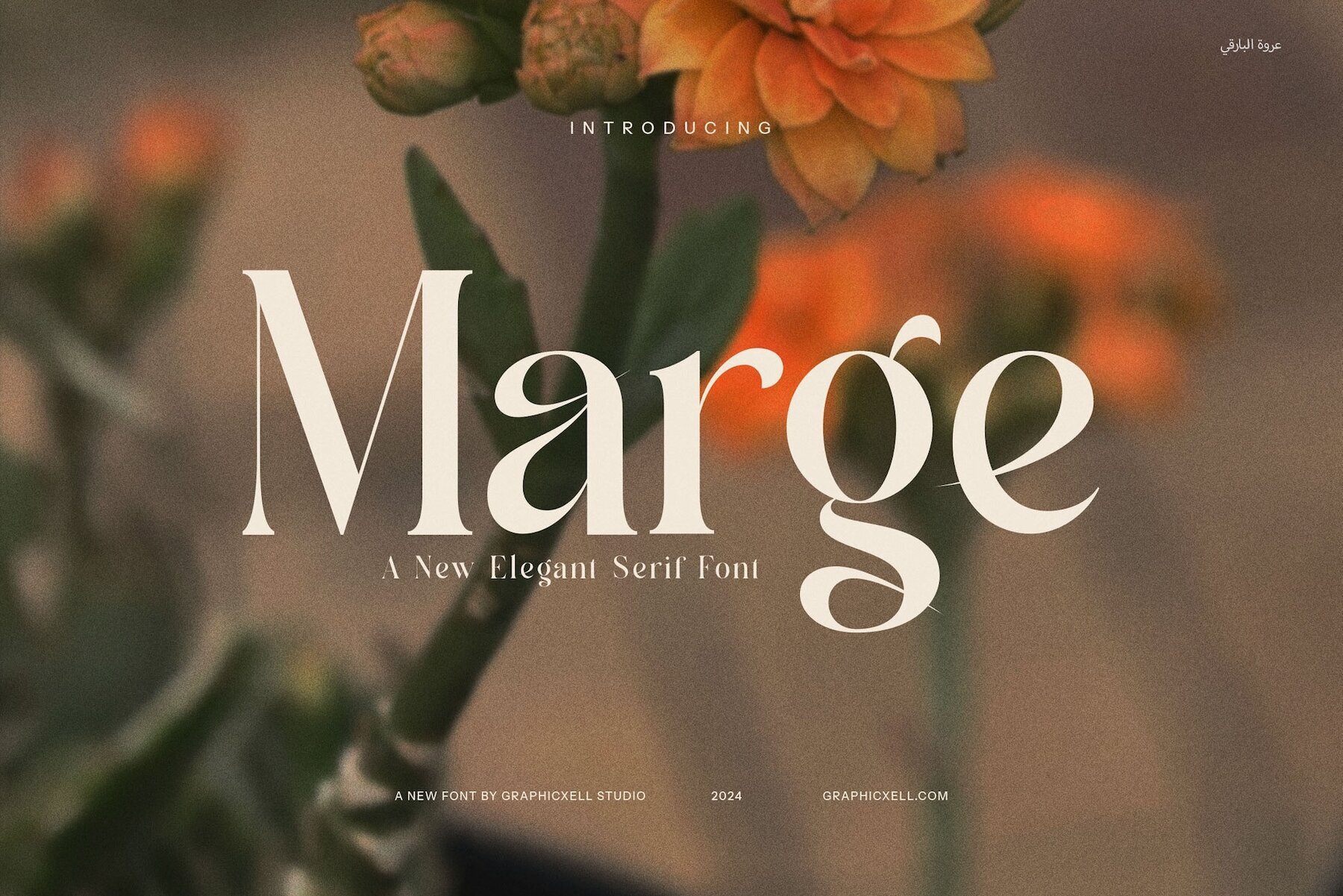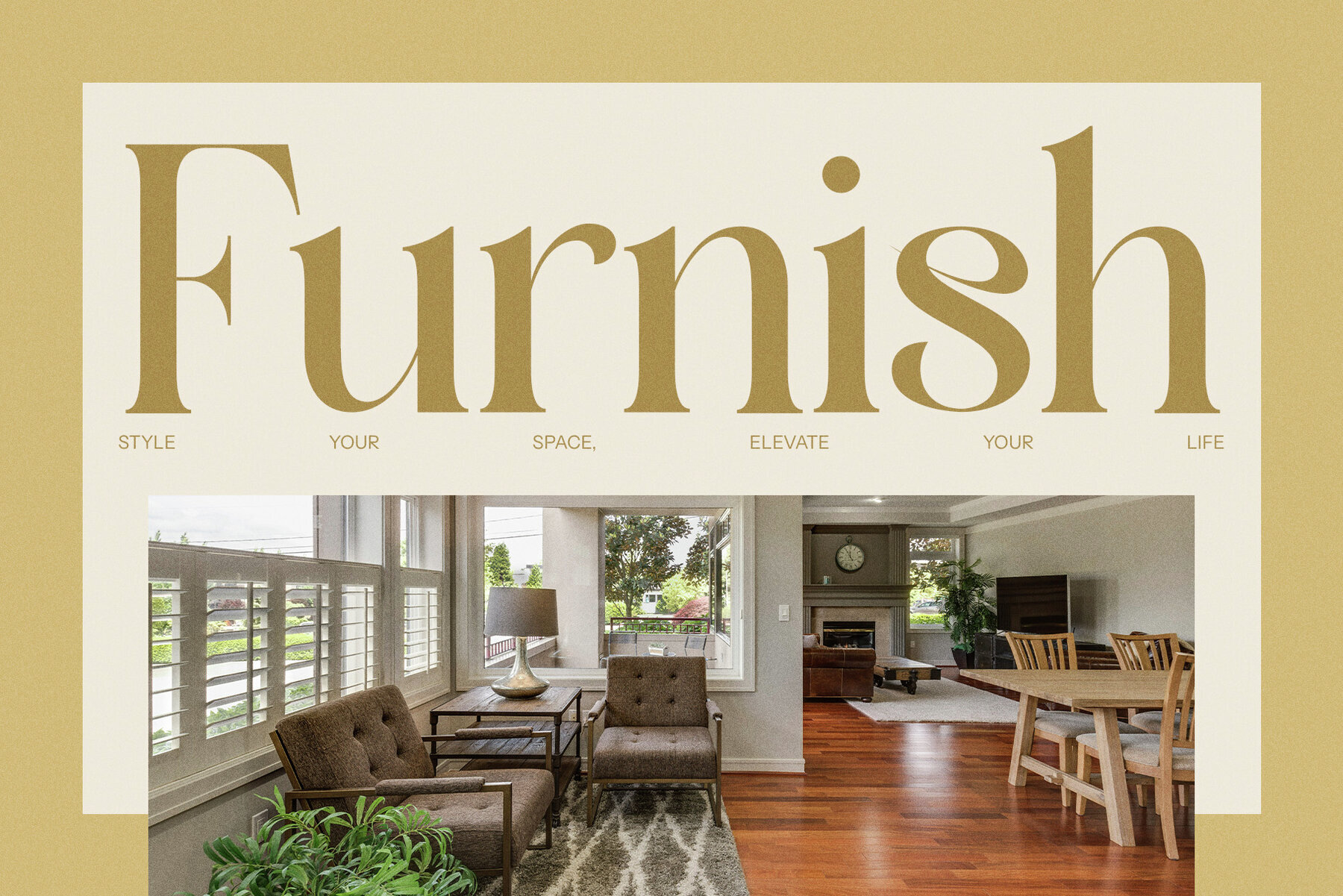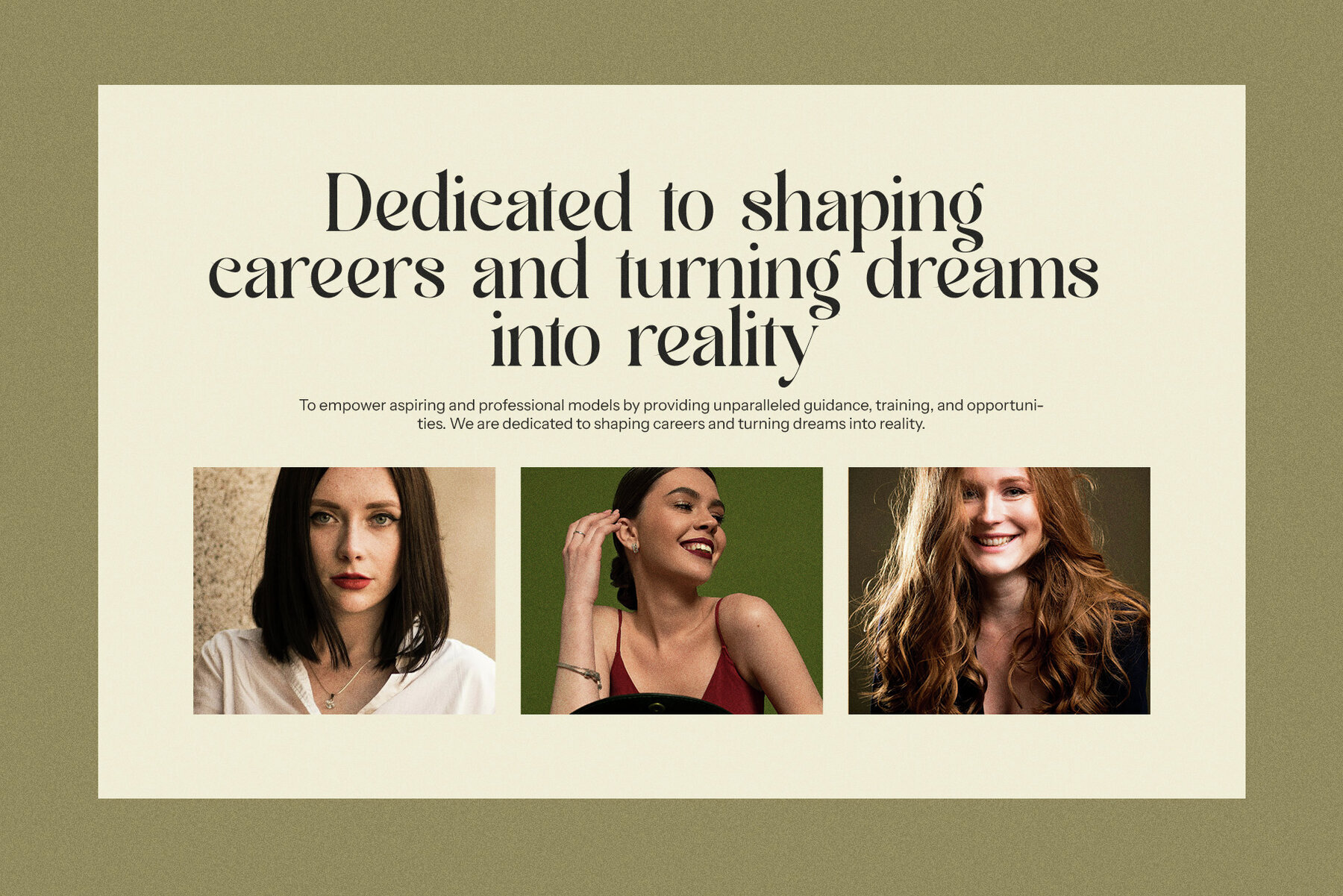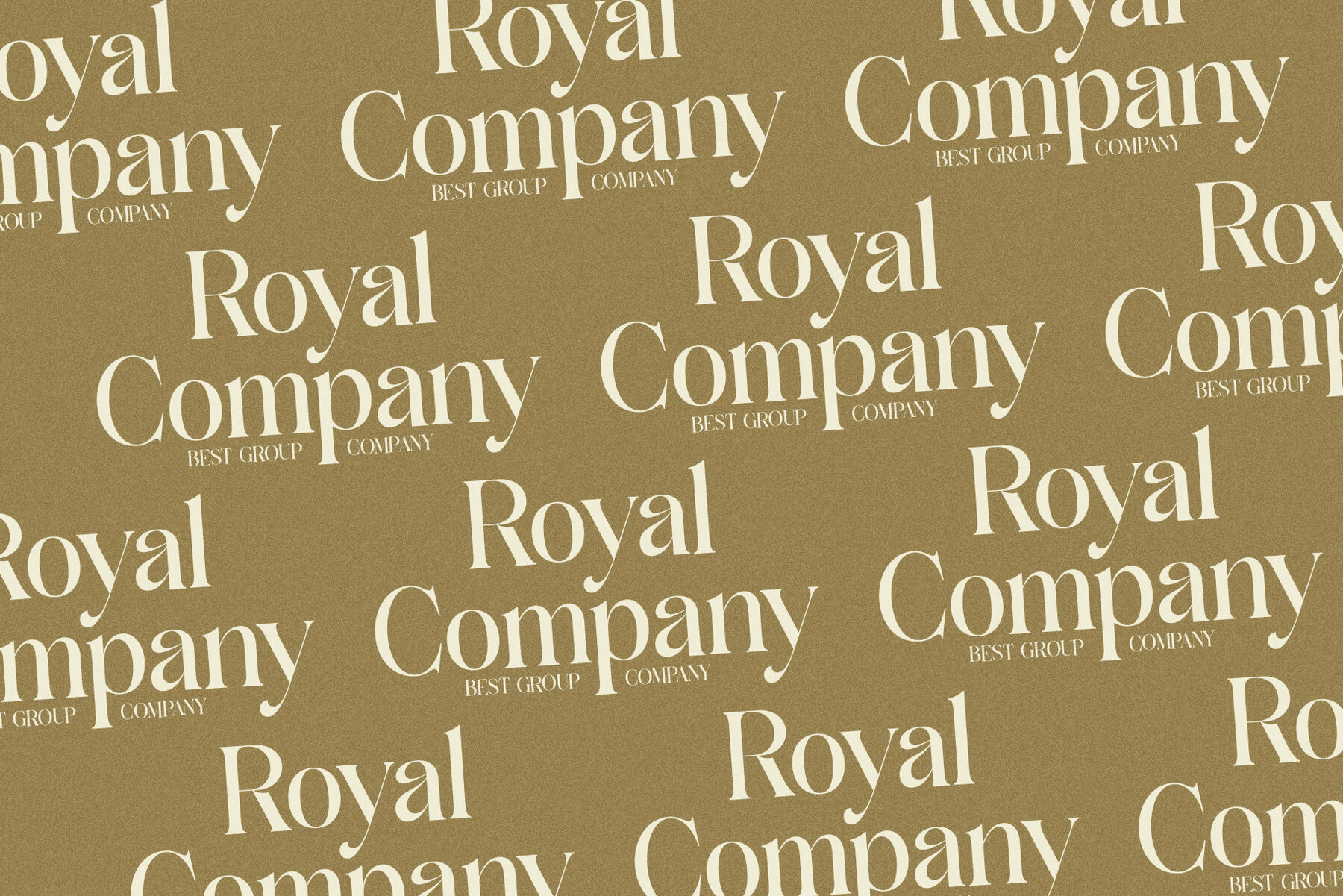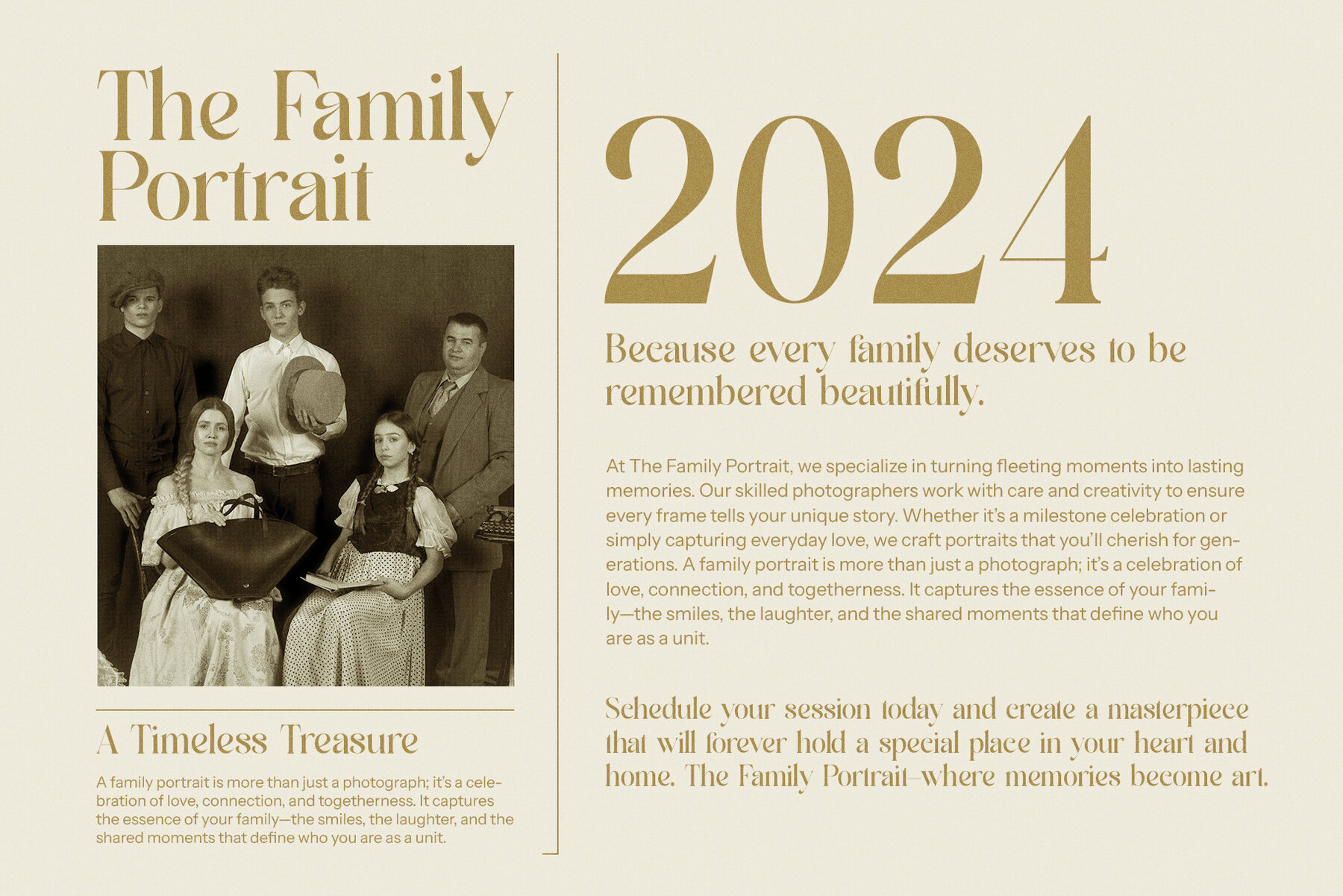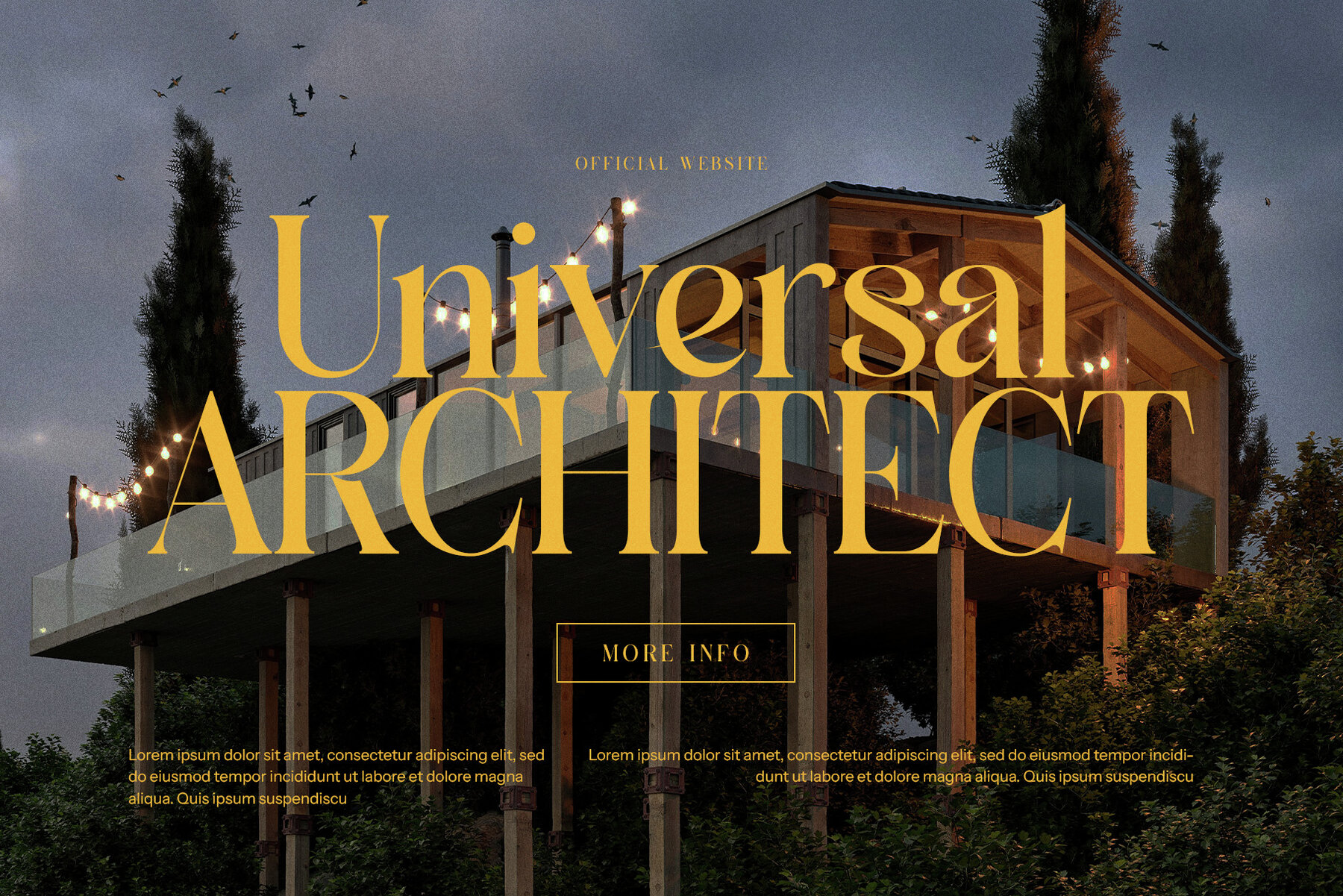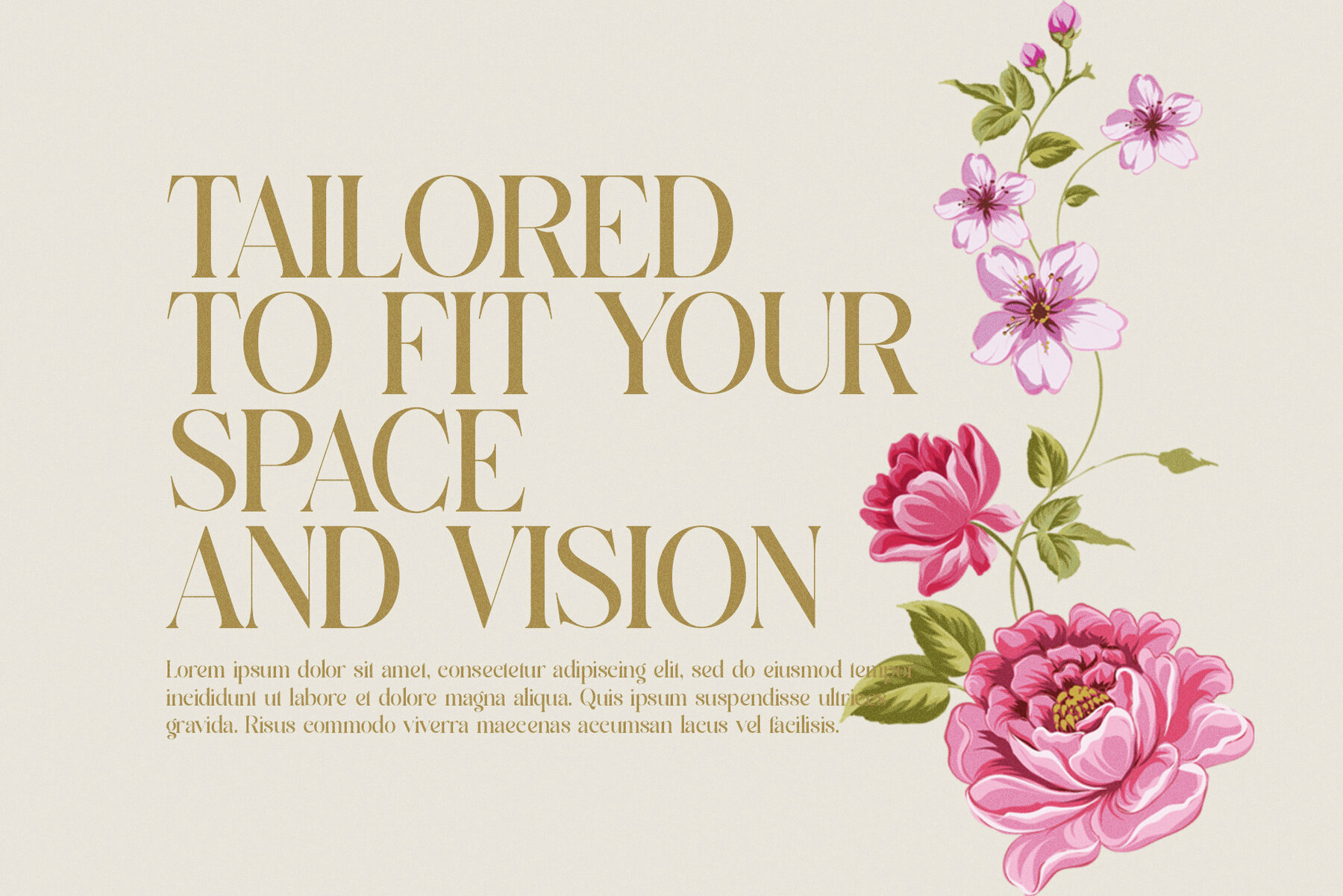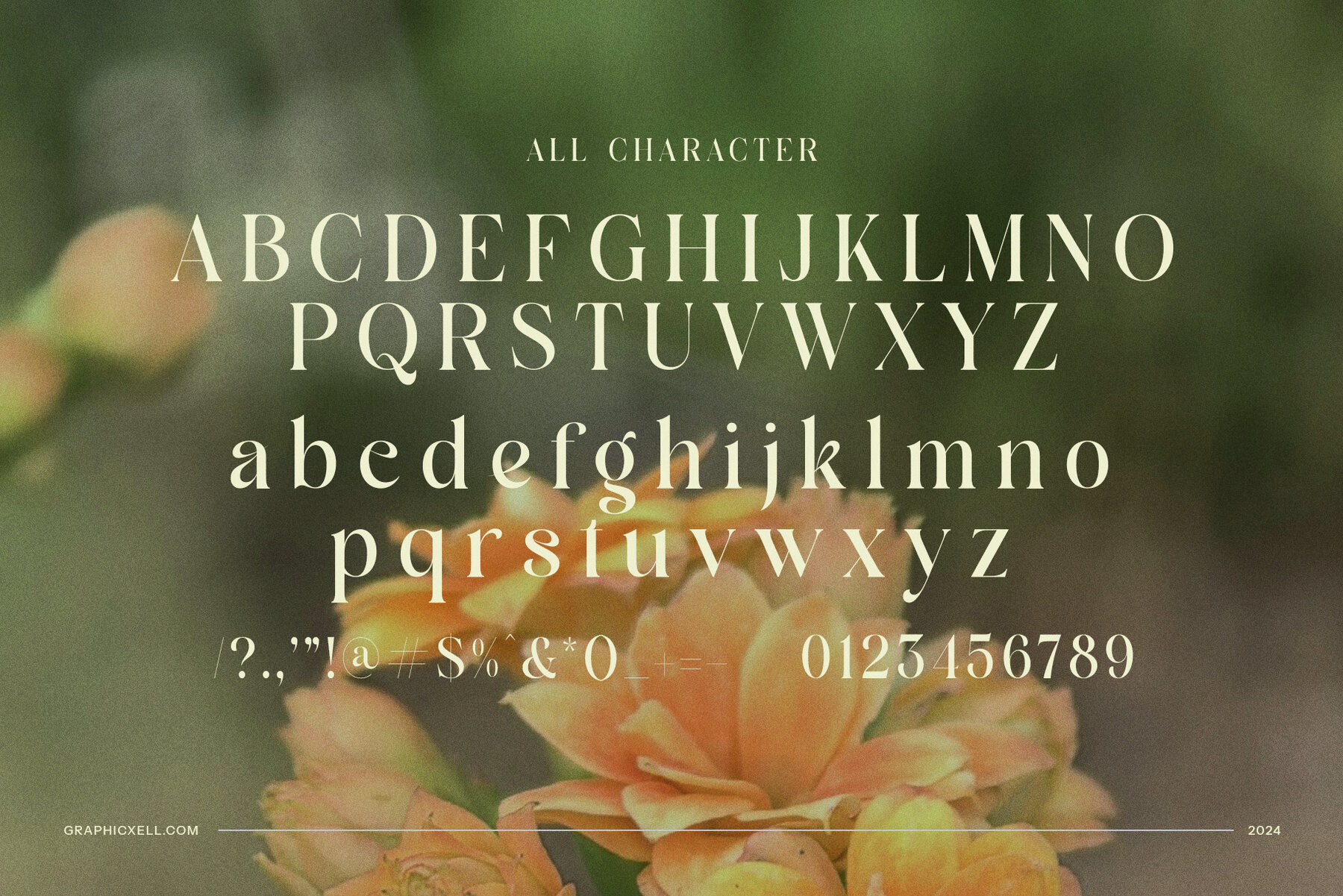
Marge Font
Marge
Marge Elegant Serif Font is a sophisticated typeface expertly blending modernity and classic elegance. Its meticulously crafted serifs and balanced letterforms provide a refined and contemporary look, making it suitable for a diverse array of design projects. This font introduces a luxurious touch to any creative work, making it perfect for logo design, branding, and corporate identities. Marge's versatility shines through in its applications for websites, magazines, brochures, and advertisements, where combining style and readability is crucial.
The elegance of Marge makes it an excellent choice for the fashion, lifestyle, and luxury sectors, where detail and refinement are paramount. Its elegant structure enhances high-end product packaging, sophisticated magazine layouts, and captivating food branding. The clean lines and timeless appeal ensure its relevance and impact across various mediums and industries. Designed for both digital and print use, Marge maintains design integrity across platforms, whether you're crafting a modern website, an elegant invitation, or a striking advertisement. Marge provides the perfect balance of modernity and elegance, making it an essential font for designers seeking style and timeless appeal.